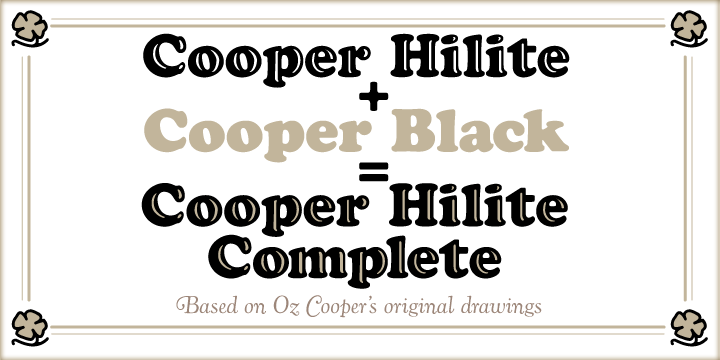
Cooper Hilite Complete is a complementary set of two fonts- Cooper Black and Cooper Hilite. Either typeface can be used alone, or as a stackable, multi-colored set.
Cooper Black, the most famous and successful of Oswald Cooper’s type designs, was released in 1920, following a year of development fleshing out the weight of the typeface and filling out the full character set. Cooper redrew the lowercase characters multiple times, toying with the rounded forms of the “m” and “n” and engaged in a lively debate with Richard N. McArthur of Barnhart Brohers & Spindler over the final form as McArthur requested that the typeface be drawn bolder and bolder. Cooper famously said the face was "for far-sighted printers with near-sighted customers", and the public agreed. Sales of Cooper Black were voluminous, and Barnhart Brothers and Spindler had a difficult time keeping up with the demand for the typeface. Conservative typographers were critical of Cooper Black, though it was overwhelmingly popular, helping to shape the American advertising landscape through the 1920s and 1930s.
1925 saw the release of Cooper Hilite, the highlighted companion to Cooper Black. The design was executed by merely painting white incised negative spaces on a proof of Cooper Black.
These two typefaces are the result of researching Cooper’s original drawings and series of engraved proofs for both typefaces. The typefaces include the full range of punctuation and diacritics that fill out a full character set. The typefaces have been lovingly kerned for the smoothest result in text setting.